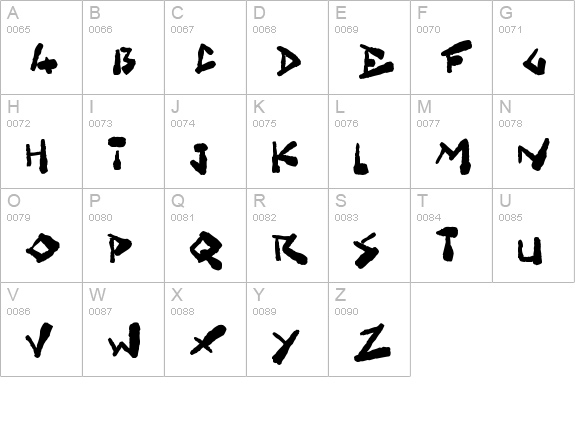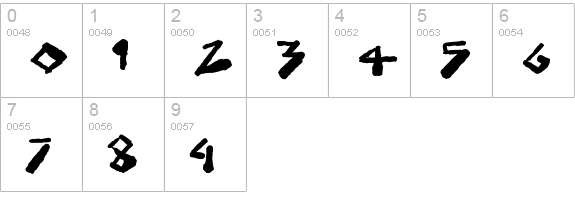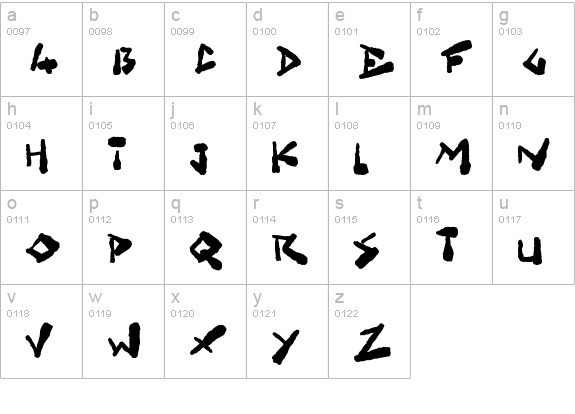
Grungelings Font Details
Grungelings is a free for personal use font in the Script > Brush category, designed by Darrell Flood. It has been downloaded 9 times and is available for Windows, Mac and Linux.
Grungelings font is a unique and edgy typeface that brings a touch of urban style to any design project. With its rugged and distressed look, Grungelings font adds a gritty charm that is perfect for posters, album covers, and streetwear branding. The irregular shapes and rough edges give this font a rebellious and raw aesthetic that stands out from the crowd.